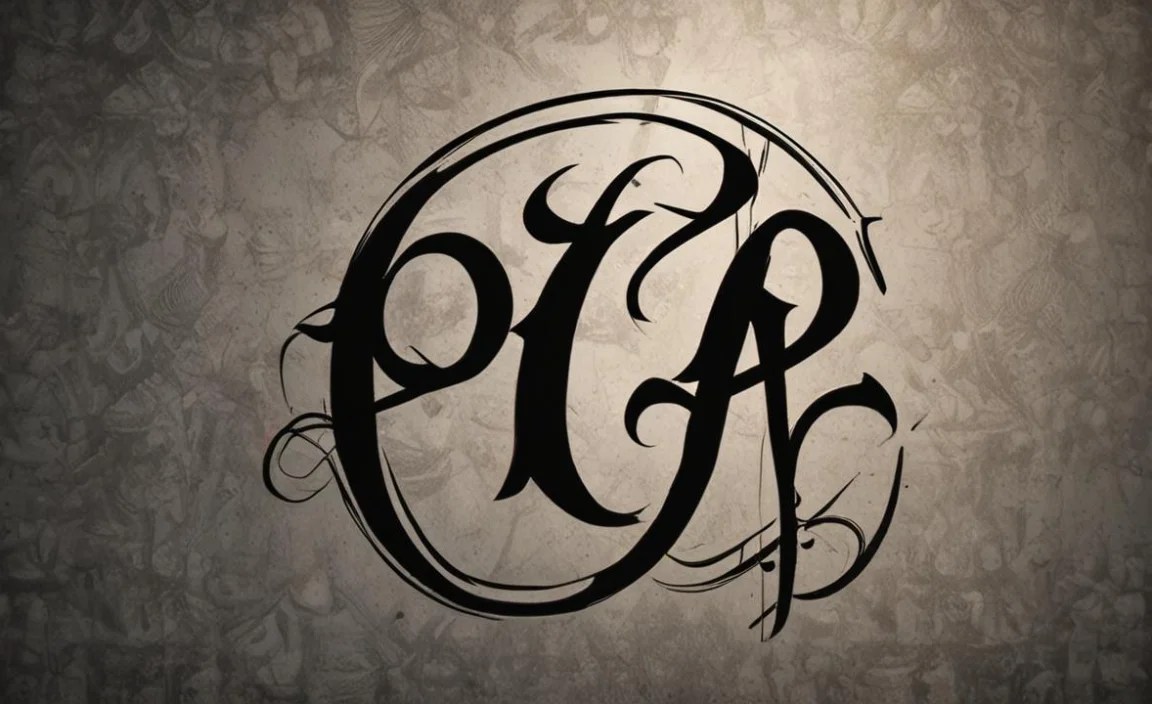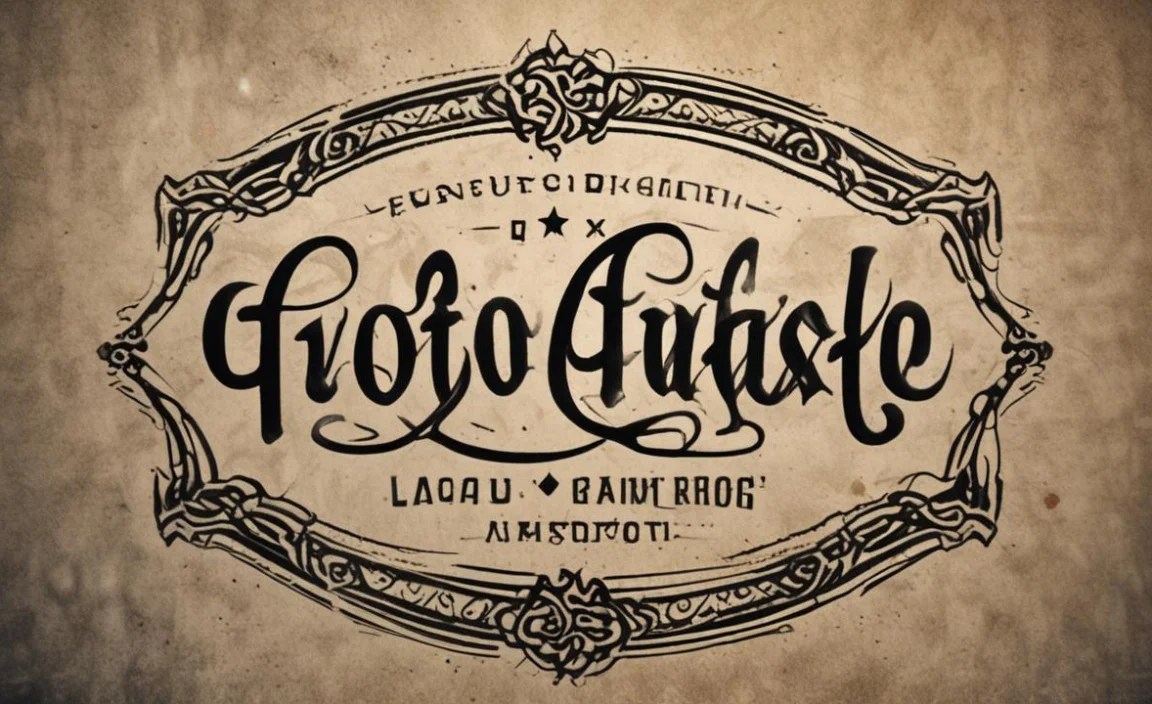
Gothic font tattoos are a powerful way to express personal style and enduring meaning. Explore iconic designs, from classic blackletter scripts to modern interpretations, that showcase drama, elegance, and a touch of dark allure. Find inspiration for your next bold statement piece.
Choosing the right tattoo can feel like a big decision. You want something that speaks to you, something unique and meaningful. If you’re drawn to a style that’s both timeless and bold, a Gothic font tattoo might be exactly what you’re looking for. These fonts carry a sense of mystery, history, and striking visual appeal. They can transform simple words or phrases into art that stands out. Don’t worry if you’re new to this style; we’ll walk through everything you need to know, from understanding the origins of Gothic fonts to exploring amazing design ideas that you’ll absolutely love.
Unveiling the Allure of Gothic Font Tattoos
Gothic fonts, also known as blackletter or Old English, have a rich history that dates back to medieval Europe. These ornate, often dramatic scripts were used in early printing and calligraphy, giving them an immediate air of sophistication and gravitas. When translated to tattoo art, Gothic fonts don’t just represent words; they embody a mood, a narrative, and a distinct aesthetic. They’re perfect for those who appreciate intricate details, a strong visual presence, and a touch of dark, romantic, or historical charm.
The Enduring Appeal of Blackletter
Why do Gothic fonts continue to captivate us, especially in the world of tattoos? It’s a blend of history and raw visual power. Think of ancient manuscripts, royal decrees, or even the stylized lettering on old pub signs. This style evokes a sense of the past, mystery, and a certain elegance that’s hard to replicate. It’s a font that commands attention and often carries a deep, personal meaning for the wearer. Unlike simpler fonts, Gothic lettering adds an immediate layer of depth and character to any inscription.
Gothic tattoos aren’t limited to just words. A stylized letter or a short monogram can be just as impactful. The key is understanding the different variations within the Gothic family and how they translate visually onto skin. Whether you’re aiming for something readable and classic or something more abstract and artful, there’s a Gothic font tattoo design waiting for you.
Exploring the World of Gothic Fonts for Tattoos
When we talk about “Gothic fonts,” it’s a broad term covering several distinct styles that originated from similar calligraphic traditions. Understanding these variations will help you pinpoint the exact look and feel you desire for your tattoo. These fonts are characterized by their thick, broken strokes, dramatic flourishes, and a general sense of density and weight.
Classic Blackletter (Fraktur & Schwabacher)
This is often what people picture when they think of a “Gothic font.” These styles are characterized by their dense, angular strokes and occasional thick, pointed serifs. Fraktur, in particular, is known for its sharp, broken appearance, while Schwabacher is slightly more rounded and fluid. They evoke a strong sense of historical tradition and are excellent for conveying serious or profound statements.
- Fraktur: Sharp, angular, with broken strokes. Ideal for names, dates, or powerful mantras.
- Schwabacher: Slightly softer and more rounded than Fraktur, with a more open feel.
Textura Quadrata
Imagine the dense, tightly packed script of medieval illuminated manuscripts. That’s Textura Quadrata. It’s incredibly formal and often difficult to read for the untrained eye, but its visual impact is undeniable. The strokes are very straight and narrow, creating a highly structured and almost architectural look.
Uncial and Half-Uncial
While not strictly “blackletter,” Uncial and Half-Uncial scripts share a historical connection and are often grouped with Gothic styles due to their ancient roots and calligraphic origins. They feature rounded, uncial forms (like capitals) and are generally more legible than Textura. They offer a softer, but still historically rich, aesthetic.
Modern Gothic/Blackletter Interpretations
Today’s tattoo artists often put their own spin on classic Gothic fonts. This can mean simplifying the strokes for better readability, adding unique embellishments, or blending Gothic elements with other tattoo styles like realism or script. These modern takes ensure that Gothic font tattoos remain fresh and adaptable.
Proven Gothic Font Tattoo Designs You Must-Have
Ready to find the perfect design? Tattoo artists have perfected the art of rendering Gothic fonts in ways that are both beautiful and durable. Here are some proven concepts that are always a hit:
1. Inspirational Quotes and Mantras
Short, powerful quotes are a popular choice for Gothic font tattoos. The font’s inherent strength amplifies the message.
- “Carpe Diem” (Seize the Day): A classic reminder to live in the moment.
- “Vires Ac Quos” (Strength and Honor): A stoic motto.
- Personal mottos: Words that guide your life or represent a significant personal belief.
Gothic font tattoos offer a captivating blend of history, elegance, and personal expression. Whether you’re drawn to the dramatic flair of classic blackletter or the refined beauty of modern adaptations, these designs provide a powerful way to permanently ink your meaning onto your skin. By understanding the different styles, considering readability and size, and collaborating with a skilled tattoo artist, you can create a timeless piece of art that you’ll cherish for years to come. Explore these proven designs, find your inspiration, and prepare to make a bold statement that truly speaks to your soul.